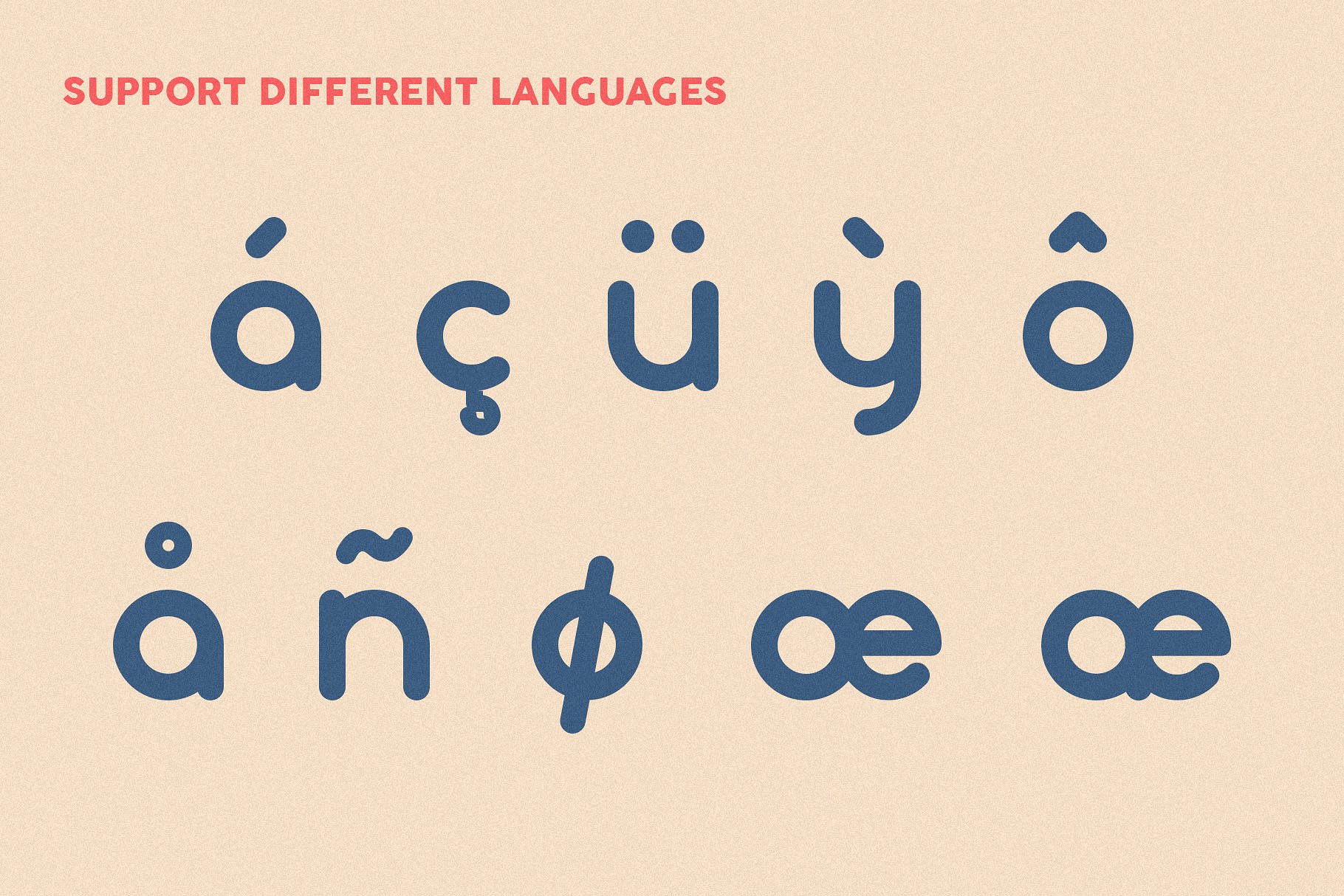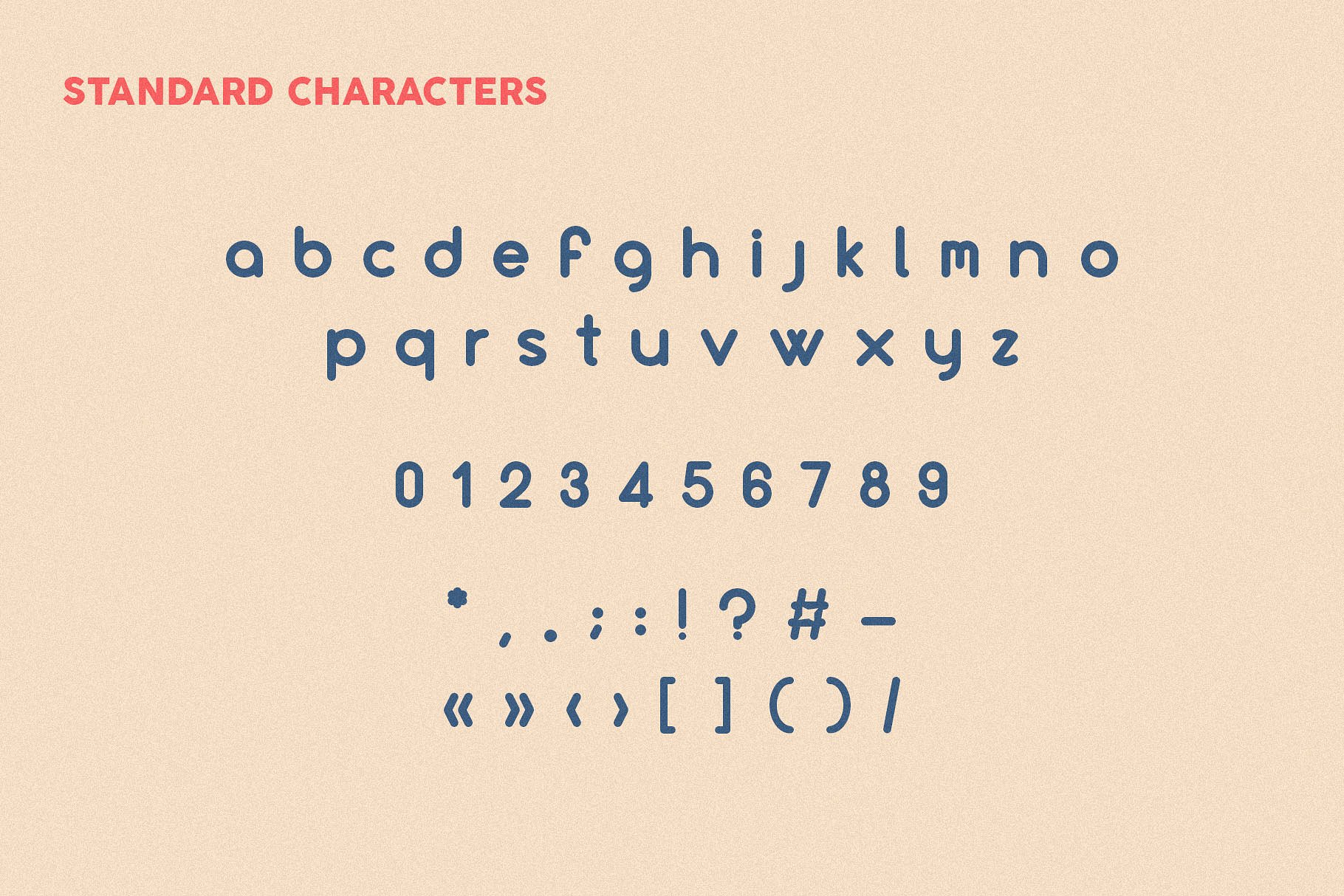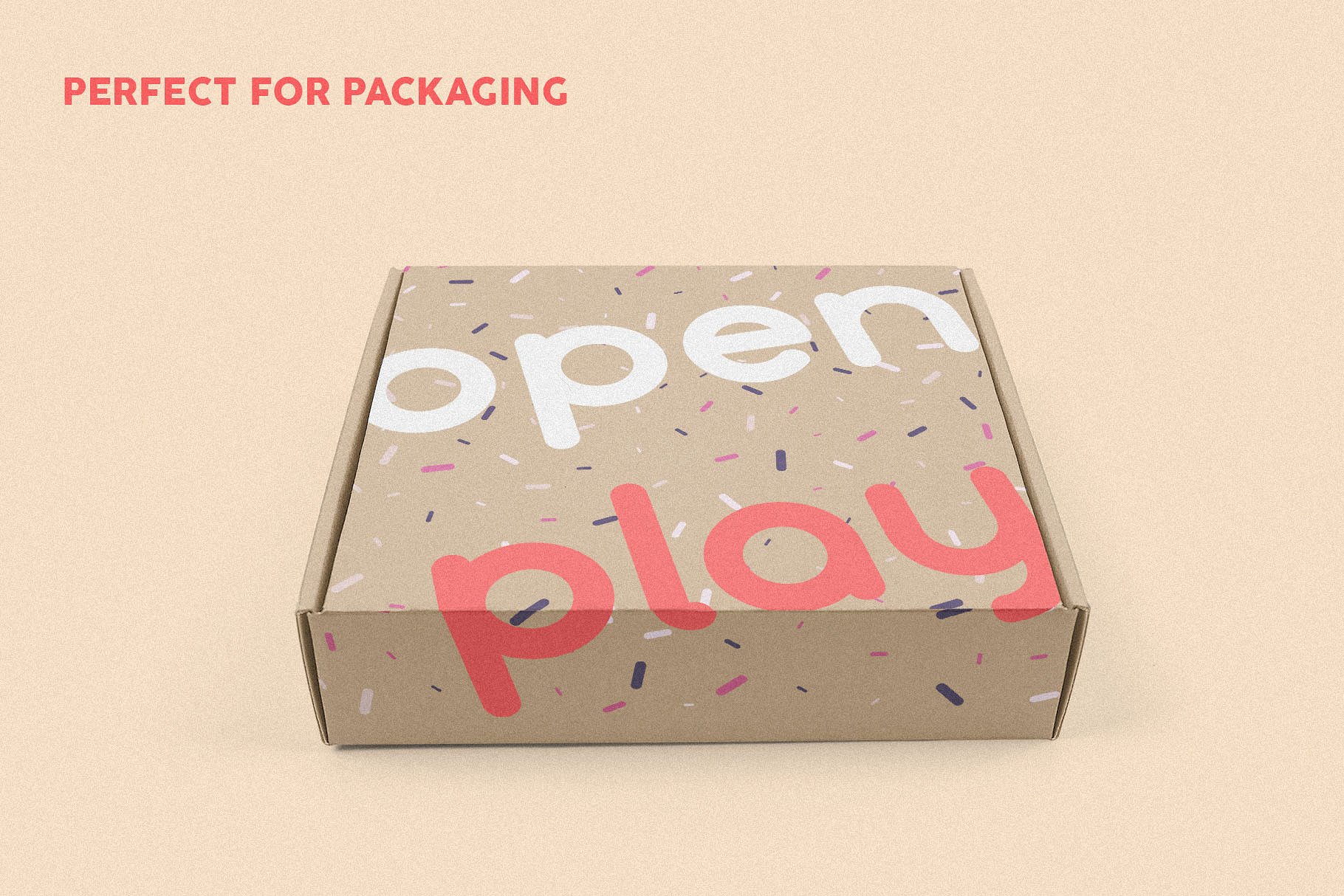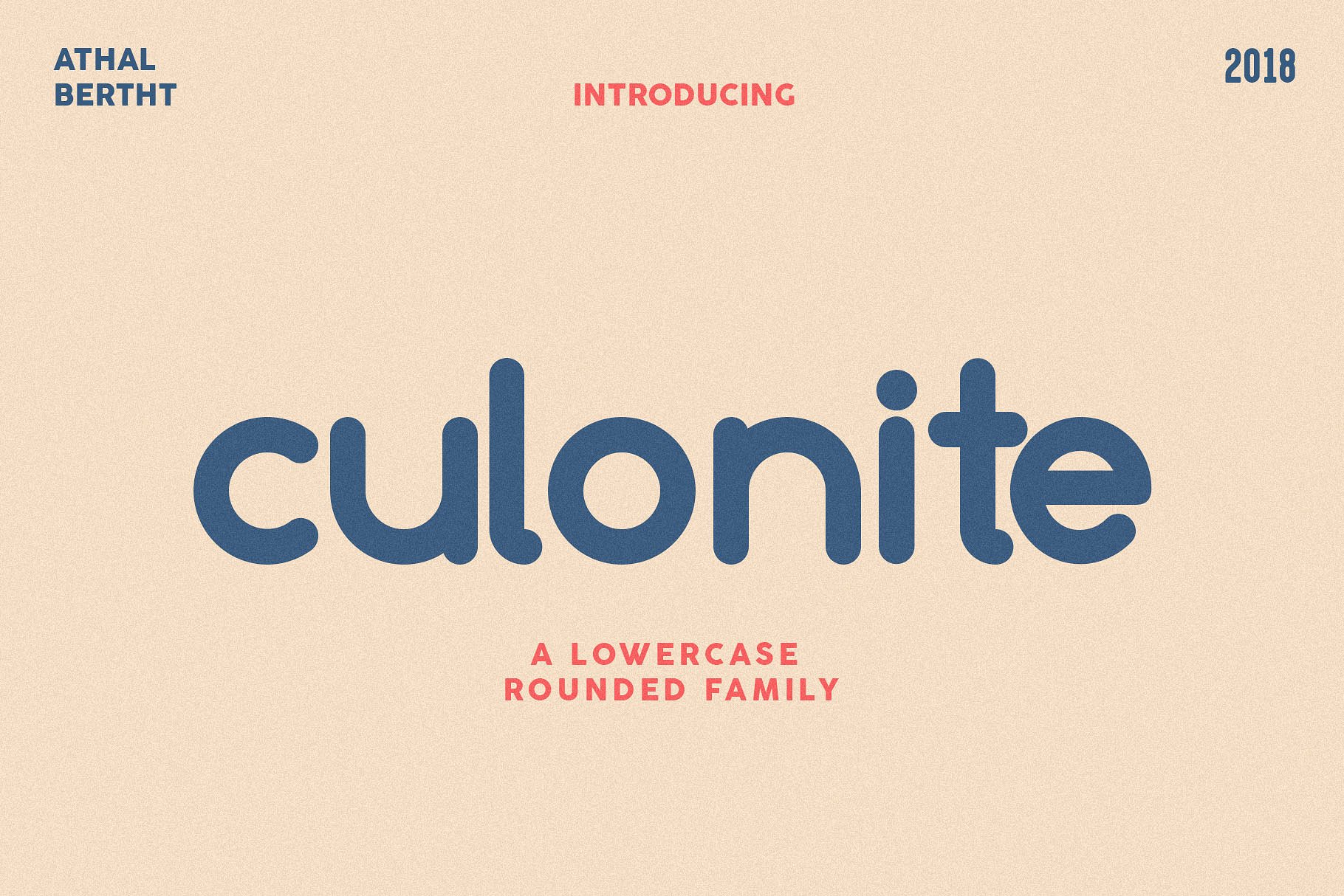
Culonite Font Family
Introducing Culonite Typeface. It is designed by athal.bertht, this is a premium font, are sold on creativemarket, but it was great, it is free today for download. Culonite is a sans serif rounded font family designed with a playfull looking; all lowercase glyphs. There are 4 fonts with different weights light, regular, semibold and bold. It support a wide broad of different languages with special characters.